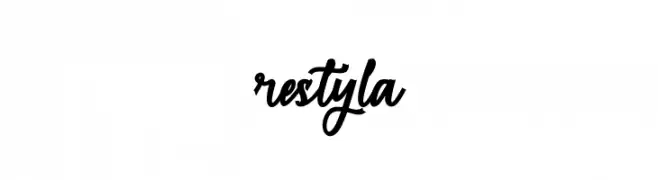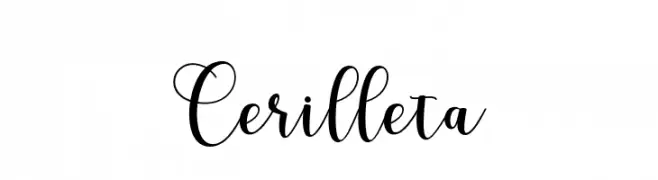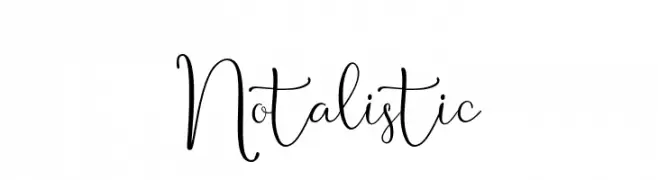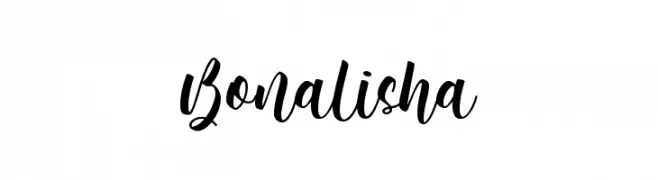
An elegant script font with flowing, interconnected characters and intricate swirls.
A graceful script font with fluid, cursive strokes and elegant loops.
A bold, dynamic script font with elegant cursive forms and decorative swashes.
An elegant and flowing script font with graceful curves and loops.
An elegant script font with flowing, cursive strokes and artistic flair.
An elegant, flowing script font with ornate uppercase and smooth lowercase letters.
An elegant script font with intricate swirls and decorative flourishes.
An elegant script font with flowing, interconnected letters and high contrast strokes.
An elegant script font with flowing, ornate swashes and high contrast strokes.
An elegant, flowing script font with whimsical loops and dynamic forms.